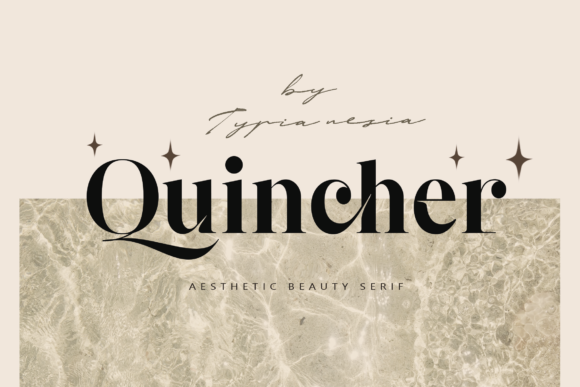
Introducing Quincher Font, a stroke of genius crafted by Typia Nesia to redefine the art of visual expression. Immerse yourself in the world of modern logos and typography, where Quincher's elegant serifs and captivating curves take center stage. This font is not just a collection of letters; it's an invitation to unlock your creativity and make a statement with every word you write.
With Quincher, your designs will radiate a timeless allure, captivating the hearts of your audience. Its refined structure and harmonious flow add a touch of sophistication to wedding invitations, thank-you cards, and quotes, making them cherished keepsakes that evoke emotions and leave a lasting impression.
Step into the realm of elegance with Quincher's greeting cards. Its graceful lines and delicate details transform ordinary sentiments into heartfelt expressions, adding a personal touch that resonates with the recipient. Experience the joy of creating logos and business cards that exude professionalism and make your brand stand out amidst the competition.
But Quincher's versatility doesn't stop there. It's the perfect companion for any design project that demands a touch of customization. Unleash your imagination and let Quincher guide you in creating breathtaking posters, flyers, social media graphics, and more.
As you explore the depths of Quincher's character, you'll discover its true essence – a font that speaks to the heart and ignites the soul. With each stroke, you'll weave a tapestry of emotions, connecting with your audience on a deeper level.
Embrace the power of Quincher and watch your designs transform into captivating masterpieces. It's the perfect font for those who dare to dream big, who strive for excellence, and who believe in the transformative power of creativity.